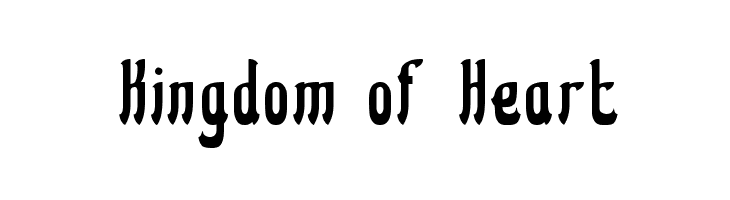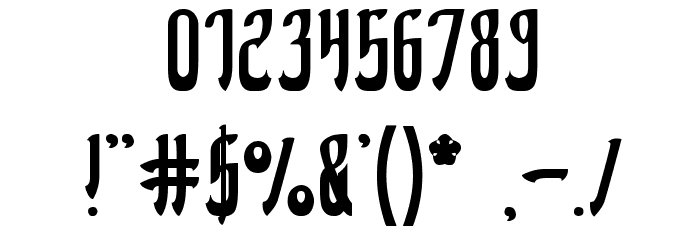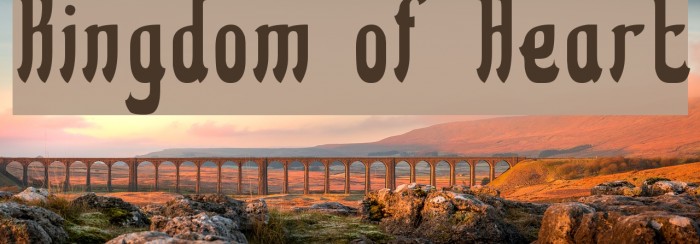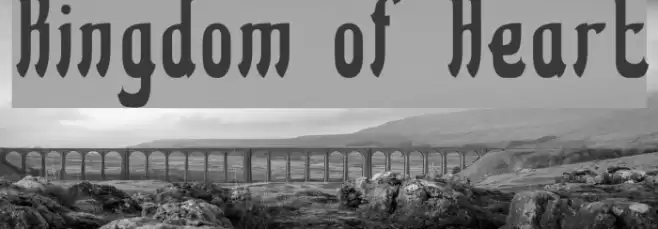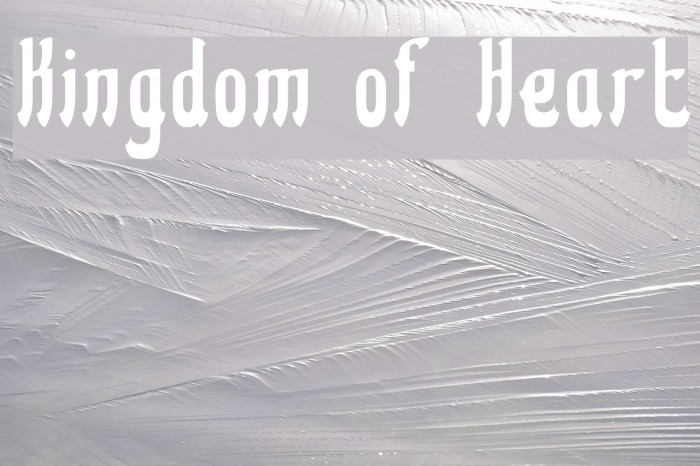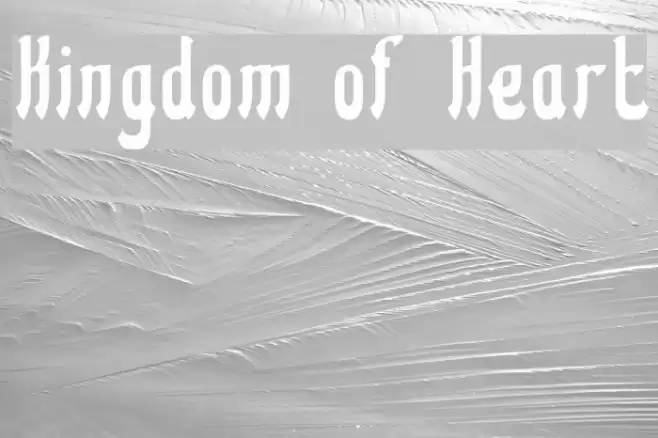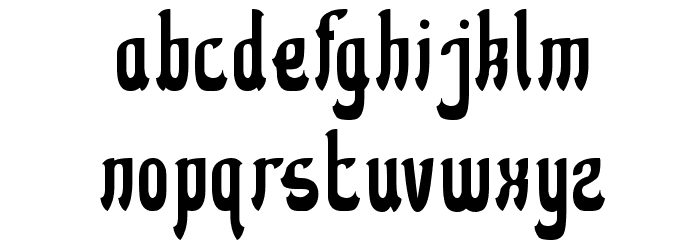
Kingdom of Heart Font
Kingdom of Heart Description
This font features a bold and dramatic style with a distinct medieval or gothic influence. The uppercase letters are tall and narrow, with sharp, angular serifs that give a sense of strength and authority. The lowercase letters maintain the same angular style, creating a cohesive look throughout the typeface. Numbers are consistent with the letterforms, featuring the same bold strokes and angular serifs. The special characters are designed to match the overall aesthetic, ensuring a uniform appearance across all text elements. This font's unique style makes it suitable for projects that require a touch of historical or fantasy elements.
| Overall Style | Vintage |
| Proposed Projects | Ideal for fantasy book covers, medieval-themed posters, or video game titles. |